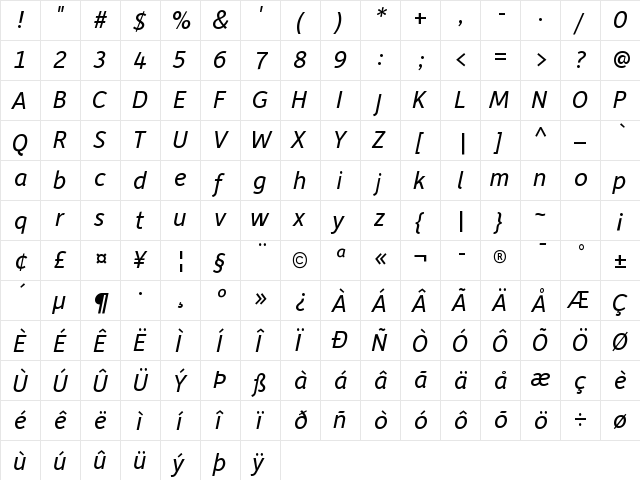
Depot Italic
| Foundry | C.Dickinson |
| Designer | C.Dickinson |
Design Context for Depot Typeface
Depot is a composed and adaptable typeface that performs quietly and consistently across a wide range of design contexts. Its italic angle brings a sense of urgency and motion to the letterforms.
Pro Tip: Try Depot for annotation and caption copy alongside an upright companion — the contrast in angle creates a dynamic but ordered typographic system.